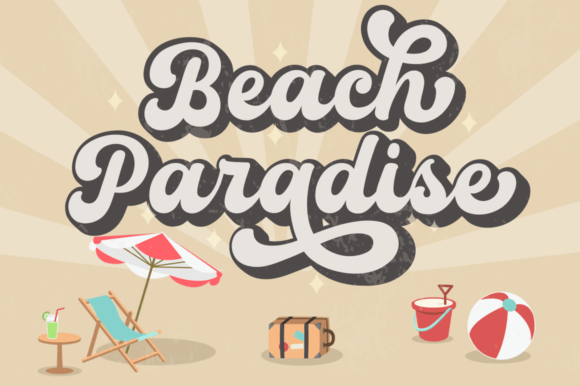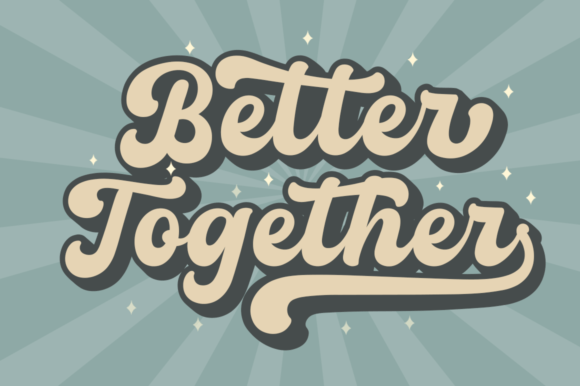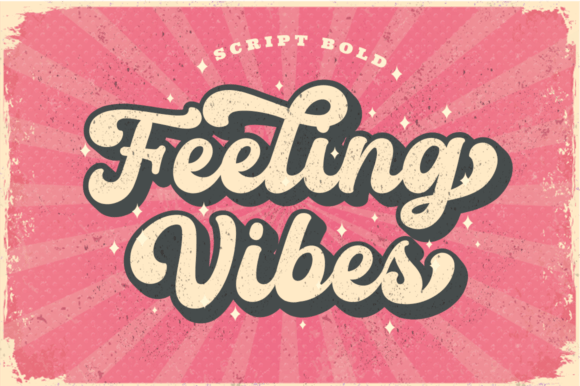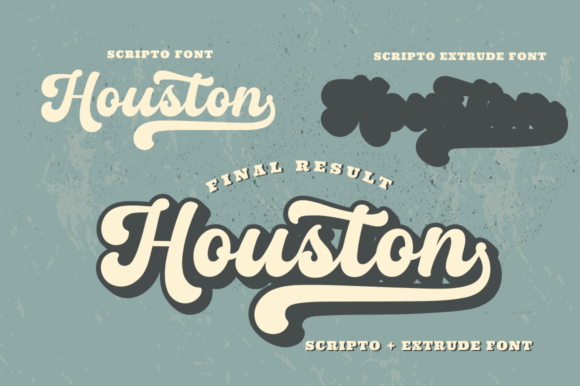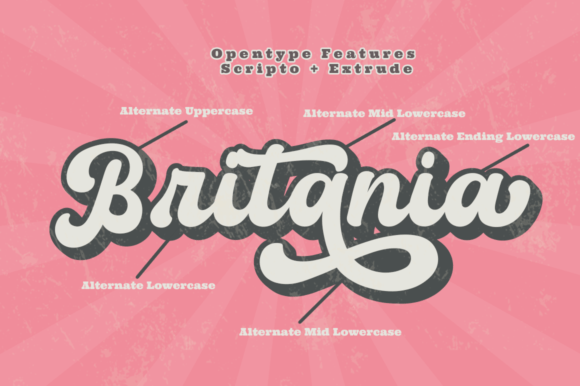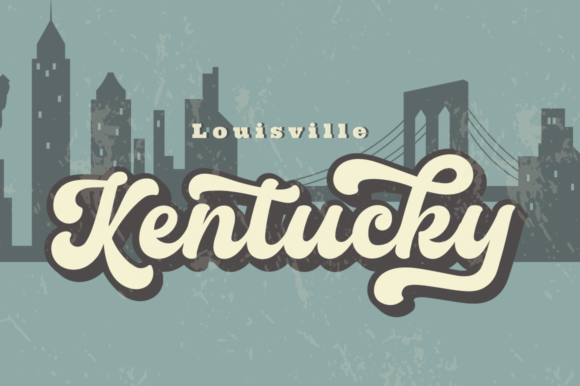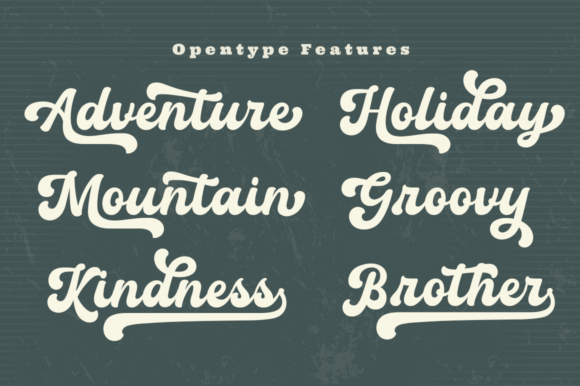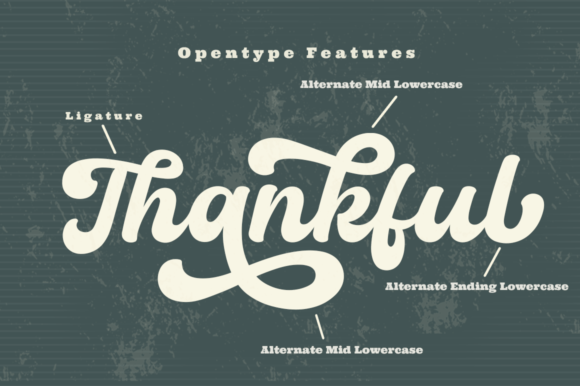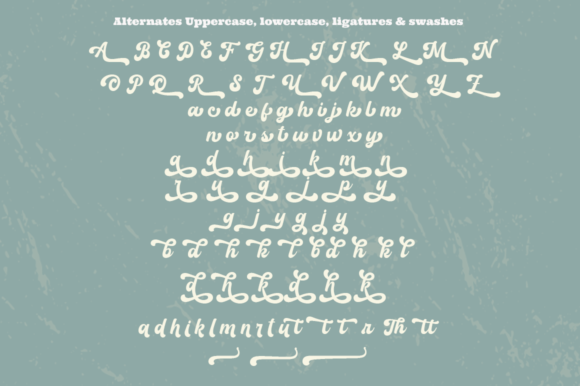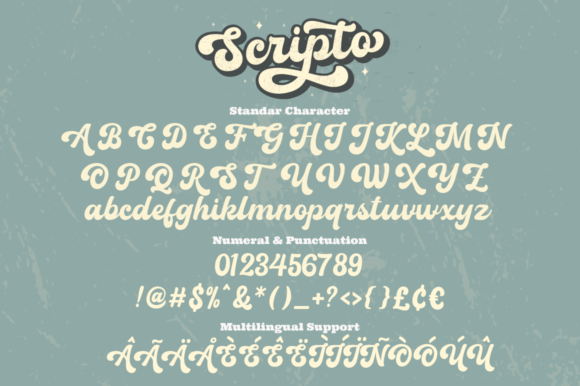
Scripto Font
About Scripto Font
“Scripto” is a fun, bold, retro-style script font that exudes a playful and captivating retro charm. This neatly crafted and highly detailed font is a wonderful addition to your font library, as it has the potential to enhance a wide range of creative creations.
One of the standout features of “Scripto” is its ability to evoke a sense of retro nostalgia while maintaining a fun and bold style. The font’s characters possess a playful quality that adds character and personality to your designs. “Scripto” is a versatile choice for projects where you want to create a retro-inspired vibe that is both fun and stylish.
The flexibility of “Scripto” ensures that it can be effectively used across different creative applications. Whether you’re designing retro-themed posters, crafting vintage-style graphics, creating eye-catching typography for branding or advertising, or exploring any other design project that demands a touch of retro flair, “Scripto” adapts seamlessly to your creative vision.
“Scripto” stands out as a font that brings a sense of authenticity and fun to your designs. Its retro-style script adds a unique and captivating touch to your projects, making them feel both playful and engaging. The inclusion of PUA encoding provides easy access to a wide range of glyphs and swashes, offering you the creative freedom to explore various design possibilities.
Incorporating “Scripto” into your design projects will likely result in outcomes that are not only bold and fun but also full of retro charm. Its ravishing style and retro appeal make it an excellent choice for creating designs that stand out with a sense of nostalgia and playfulness. Fall in love with the retro charm of “Scripto” in your next project, and watch as it brings a touch of fun and style to your designs, captivating your audience along the way.